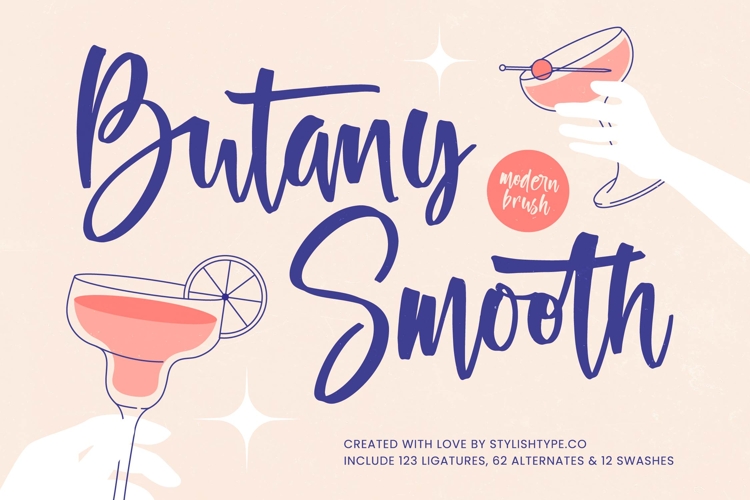
Butany Smooth - Modern Brush Font Script
Inject instant personality and vibrant energy into your next campaign with Font Butany Smooth - Modern Brush Font Script. This fluid, signature-style typeface captures the authentic sweep of a traditional brush, digitized into a clean, smooth vector finish. Its dynamic baseline and high-contrast stroke variation deliver an undeniable sense of motion and excitement, making every word a captivating piece of hand-lettered art. It’s engineered for maximum visual impact in display settings, guaranteeing that your headlines feel fresh, engaging, and instantly recognizable in the competitive marketplace.